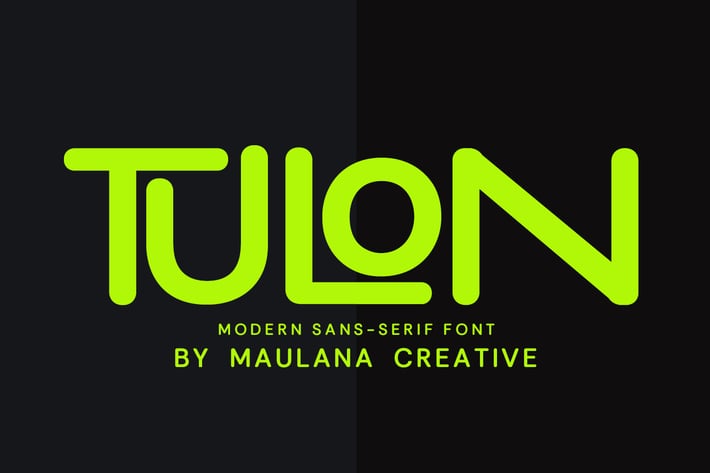
Tulon Modern Sans Serif Font
Tulon modern sans serif font. Awesome character with a ligature and alternate. To give you an extra creative work. Tulon font support multilingual language. This font is good for logo design, Social media, Movie Titles, Books Titles, a short text even a long text letter and good for your secondary text font with sans or serif. Make a stunning work with Tulon font.